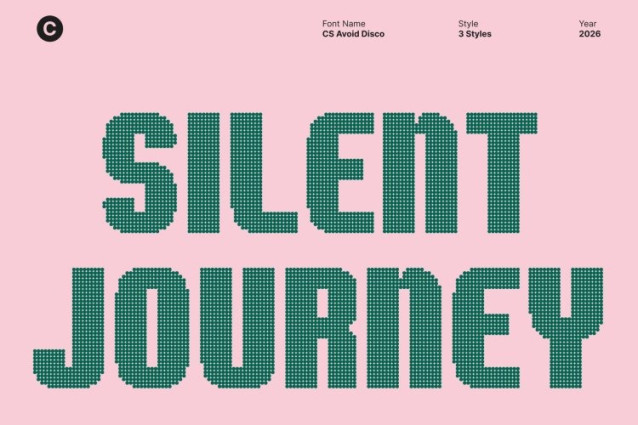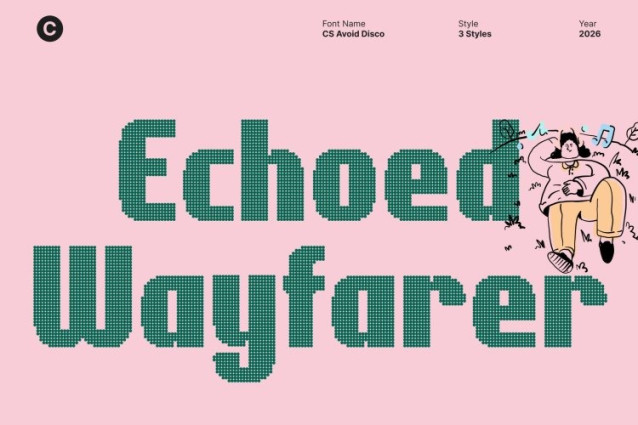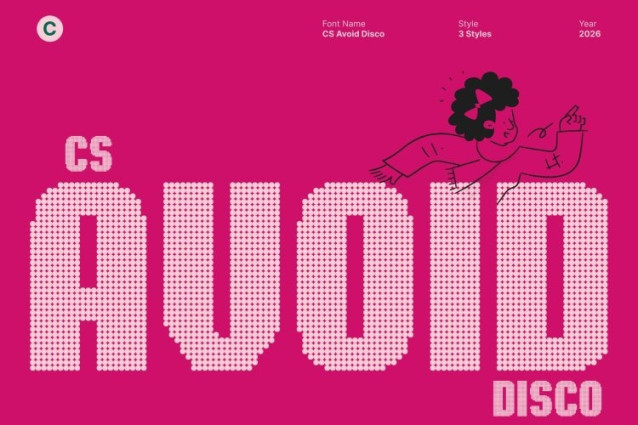
CS Avoid Disco Font
CS Avoid Disco Font This is a modern condensed sans serif font designed to deliver powerful visual impact in minimal space. Its narrow proportions and solid construction create a confident, efficient presence, with each letterform feeling tight, controlled, and purposeful. The result is a contemporary display font that communicates strength, clarity, and precision.
High Impact in Space-Conscious Layouts
Optimized for tight compositions, this font excels in headlines, banners, and layouts where space is limited but boldness is essential. Its condensed structure allows more characters to fit comfortably while maintaining excellent readability. Subtle disco-inspired energy adds rhythm and movement, giving compact text a lively, attention-grabbing presence.
Clean Geometry with Energetic Readability
Built from clean lines and assertive weight, this font balances sharp geometry with strong legibility. Sturdy strokes and consistent rhythm ensure clarity from a distance, while minimal detailing keeps the design sleek and modern. The added disco influence introduces vibrancy without compromising its professional, streamlined look.
Perfect for Modern Branding and Dynamic Display Design
This font is ideal for branding, advertising, posters, packaging, and digital visuals. Its compact form, bold voice, and energetic disco character make it especially effective for modern brands, urban aesthetics, and visual identities that value efficiency, confidence, and standout impact.